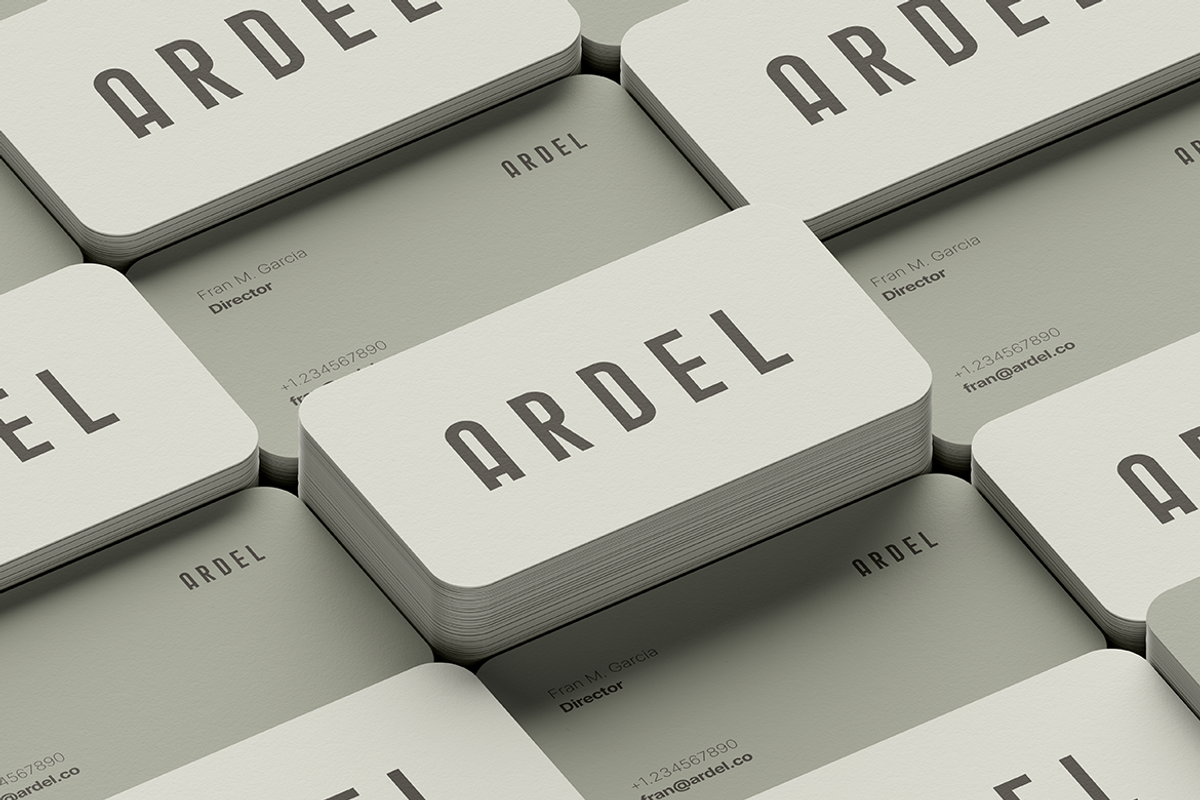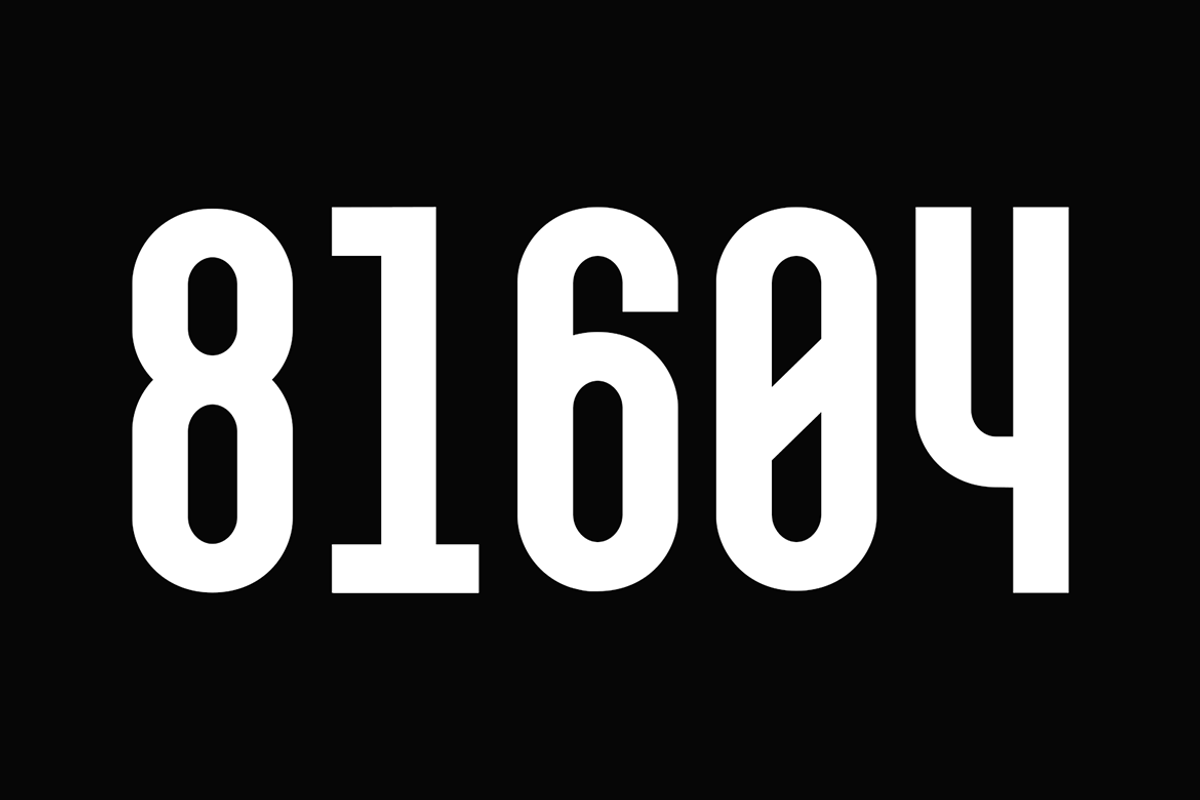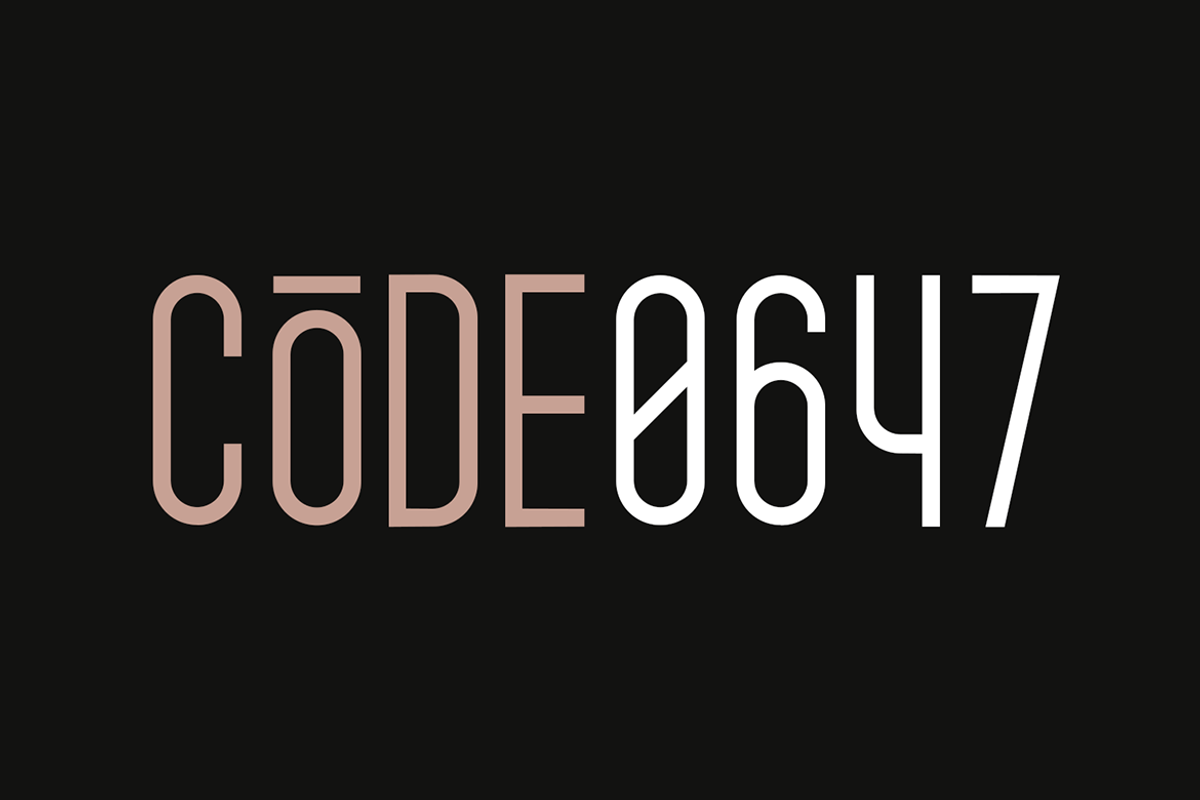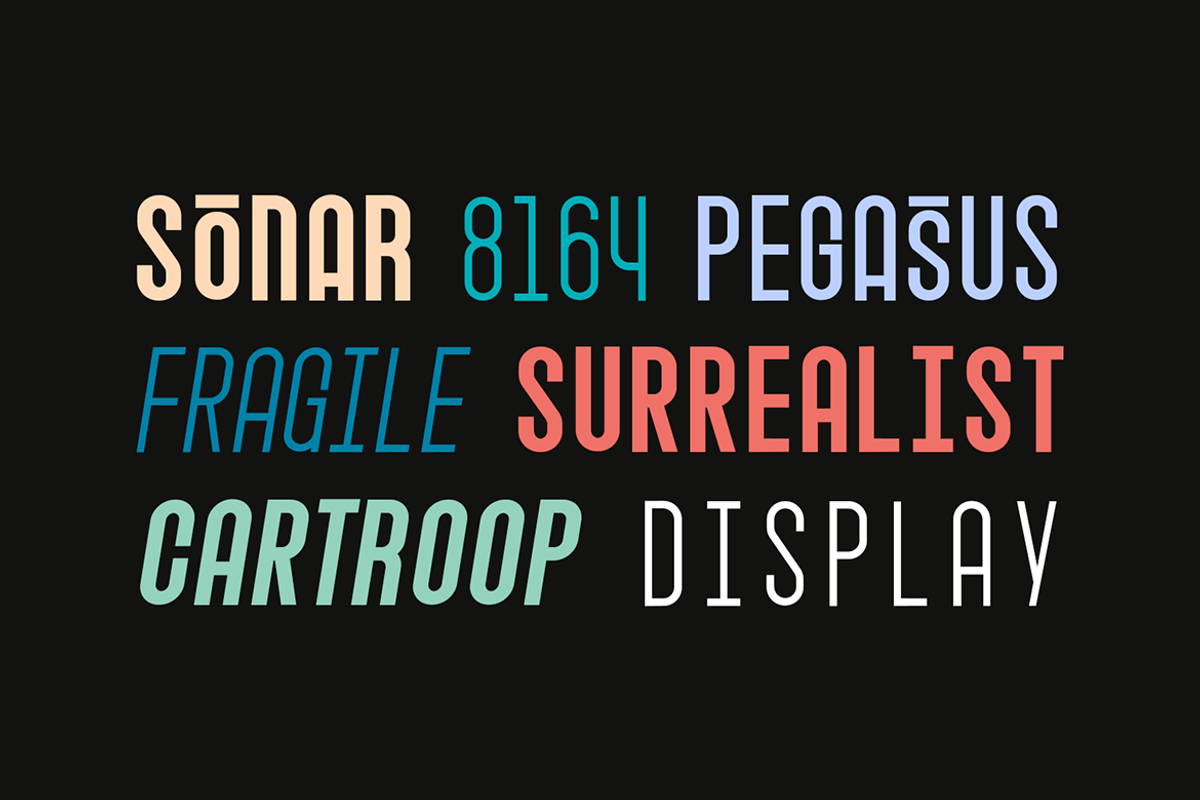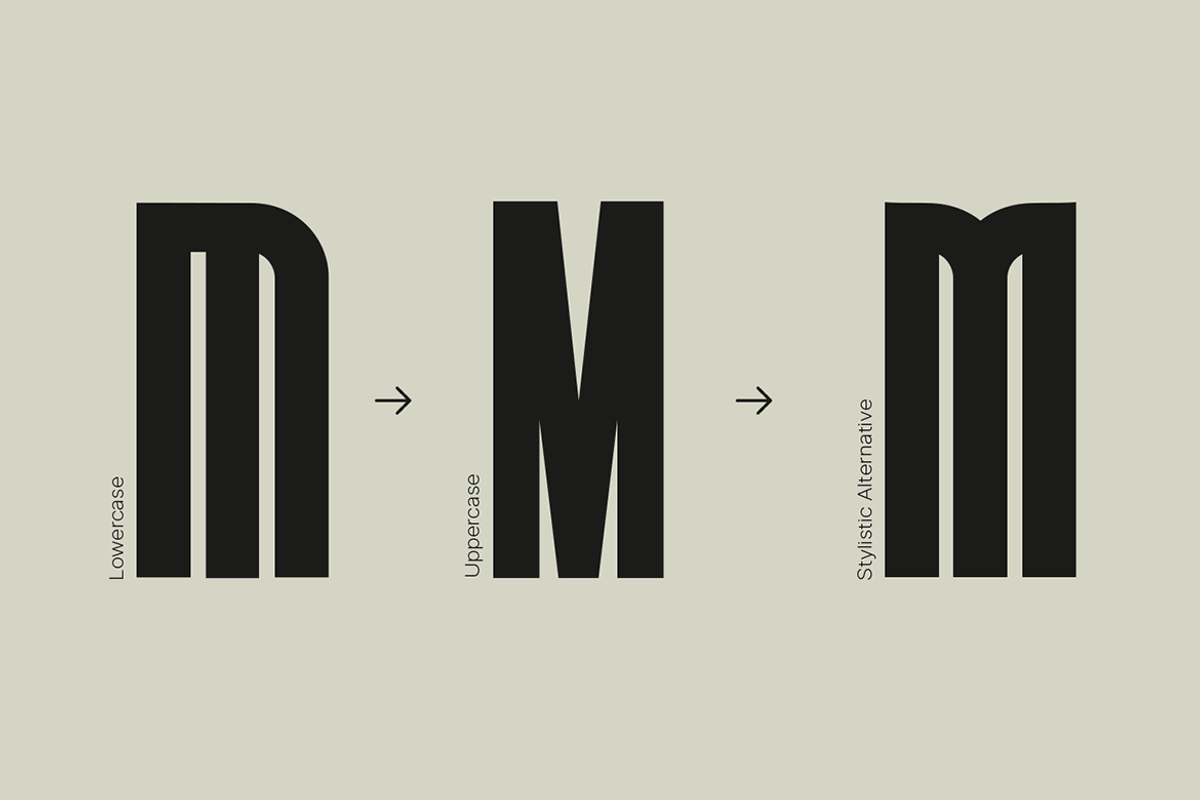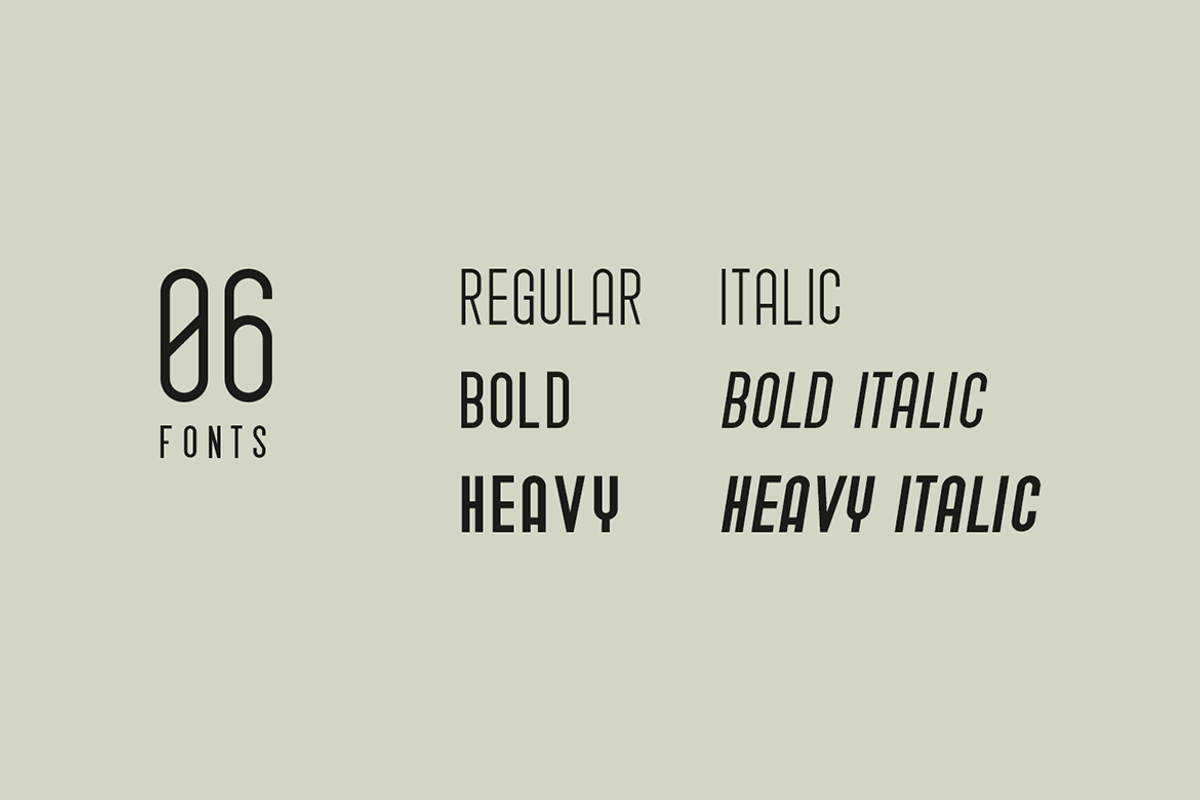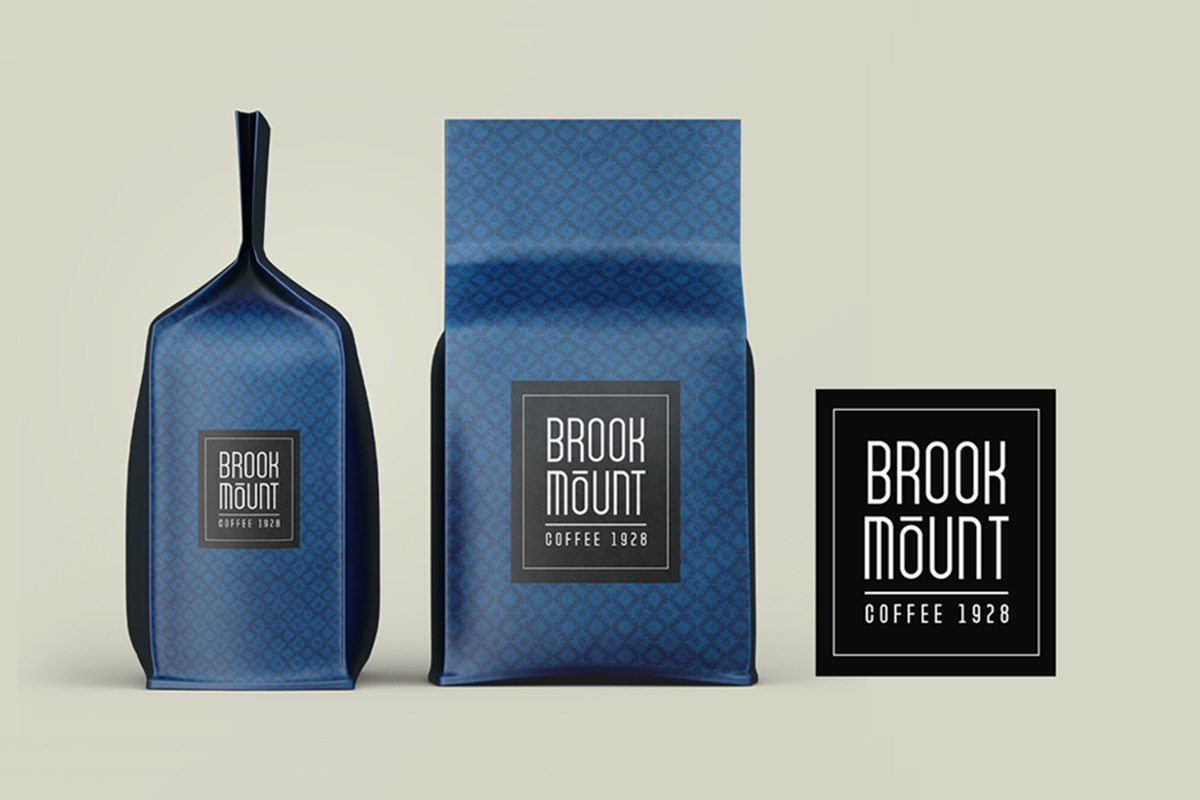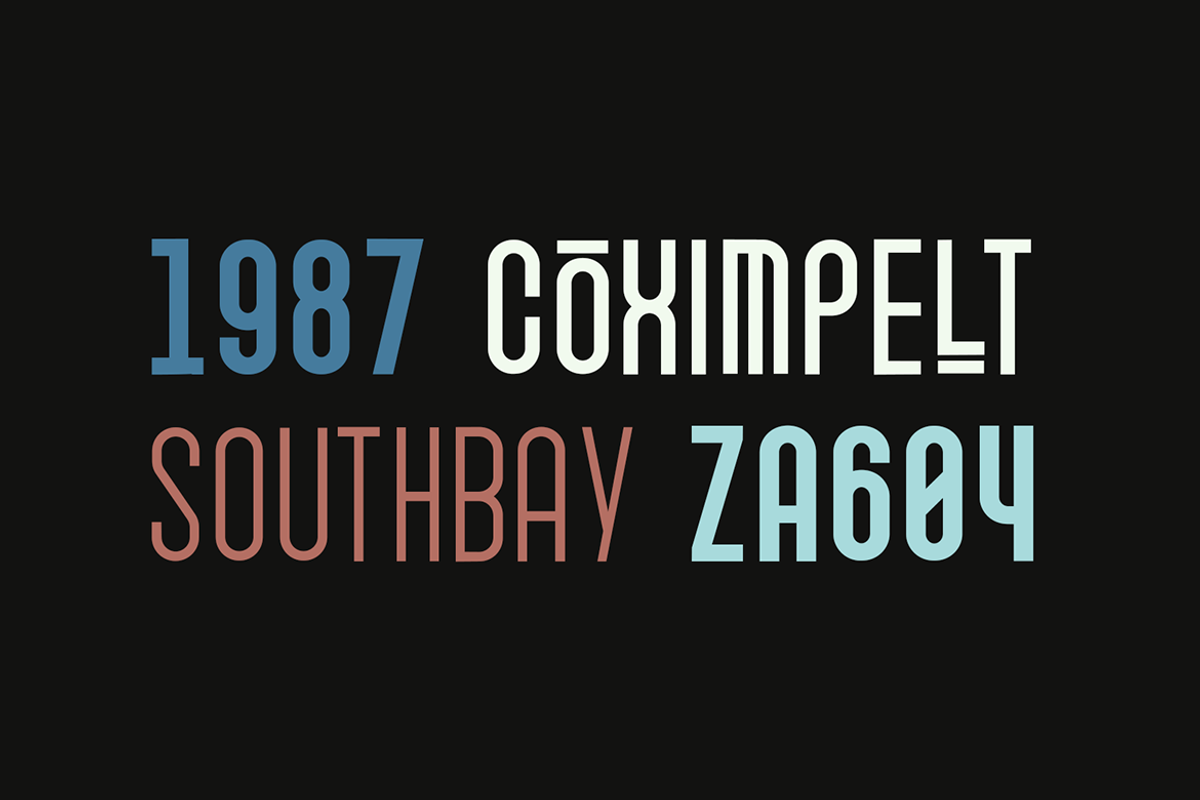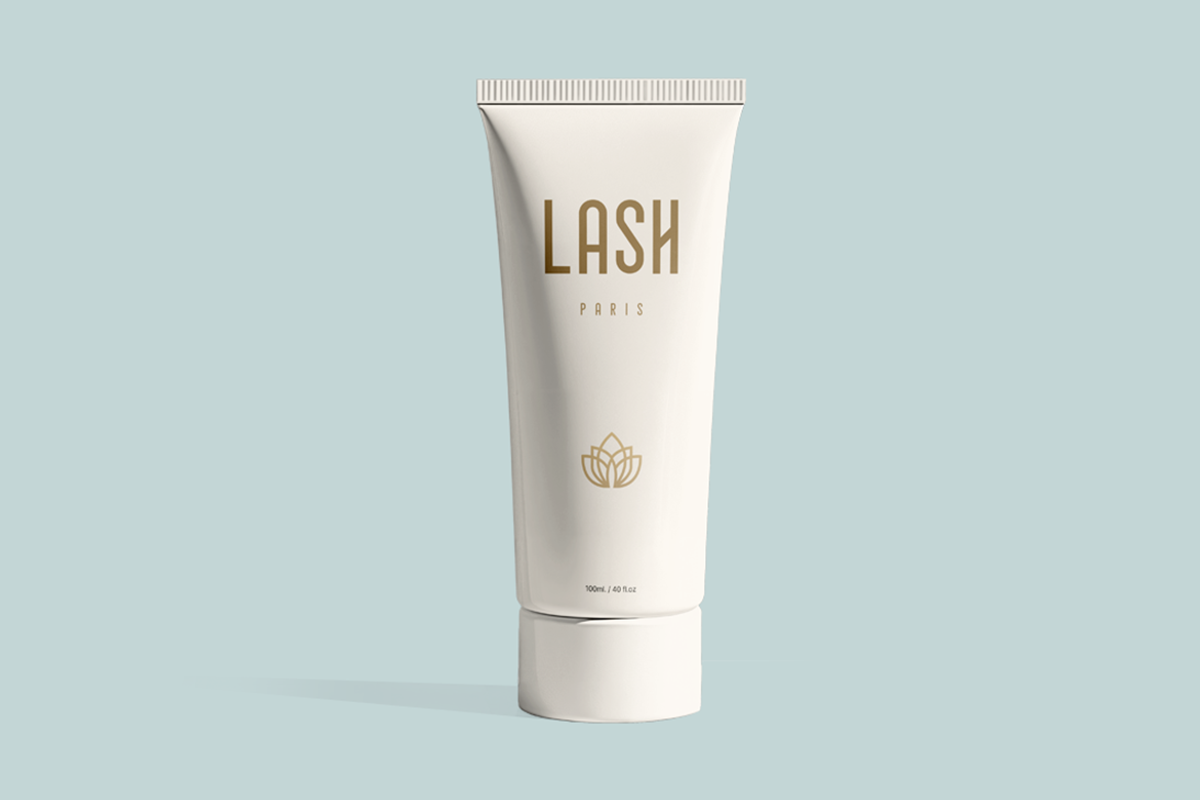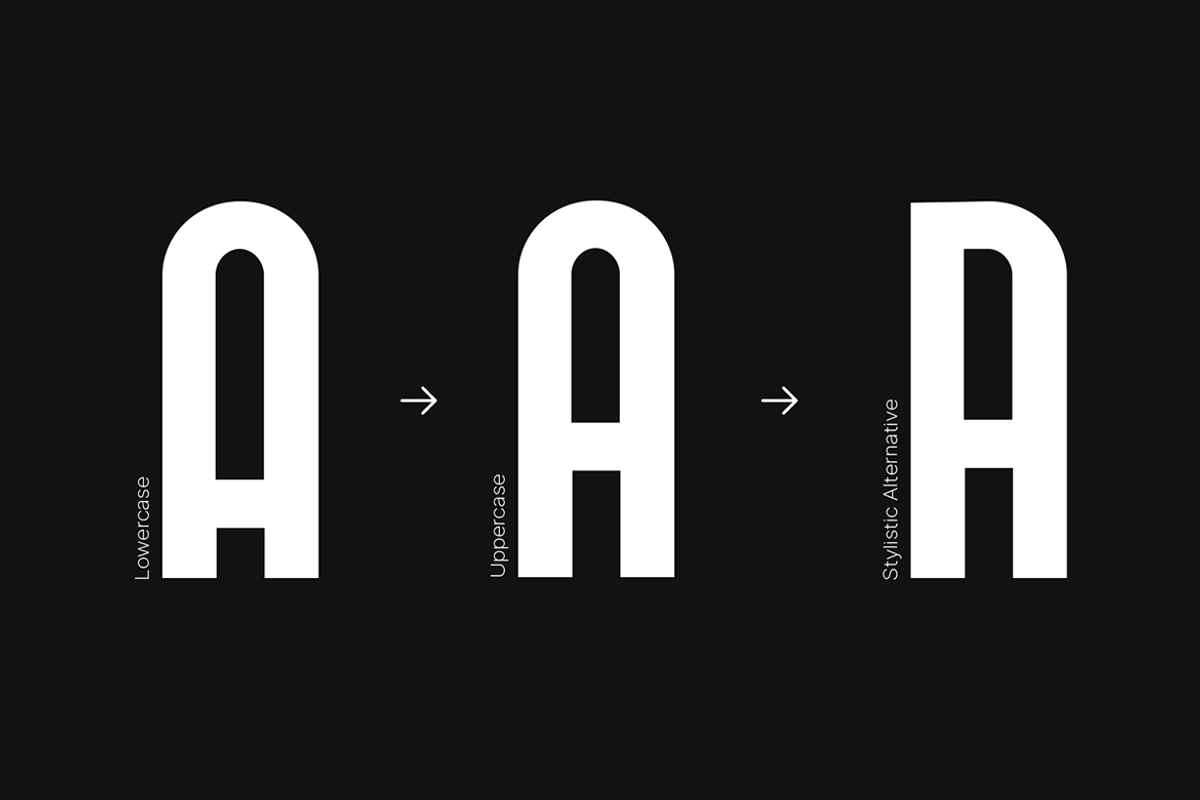
Marko Pedro - Display Font Family
ABOUT THE FONT FAMILY:
MARKO PEDRO is a unique font family with a fresh design blended with a vintage Hispanic flair that makes this typeface perfect when used for branding, logotypes, and display purposes. It is especially suitable for creating exceptional logos, promotional content, and marketing graphics that can capture your visitors' attention. By adjusting the letter spacing of the font, you can have more design options for your creative projects. Moreover, the typeface comes with Stylistic Alternatives that can enhance the visual appearance of certain glyphs, providing additional design options. Take a look at the examples above to get a better idea of the potential of this typeface.
The MARKO PEDRO family contains a total of 6 fonts featuring three weights with uprights and italics equivalents for each weight. Each weight includes extended language support, including Western European & Central European sets. A total of 292 glyphs are included. The pack contains OTF, and TTF as Desktop fonts, and optional Web Fonts (all EOT, SVG, TTF, WOFF, and WOFF2 formats included) as licensing options
MARKO PEDRO font family includes a collection of 6 fonts in total, with three upright weights and Italic equivalents of all three weights as follows:
Italic
Bold
Bold Italic
Black
Black Italic
Handcrafted and designed with powerful OpenType features in mind, each weight includes extensive language support with Western European, Central European, and South Eastern European sets. A total of 292 glyphs are available.